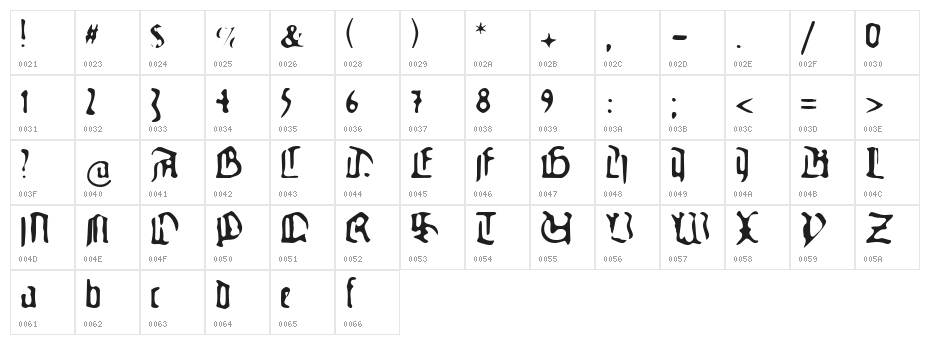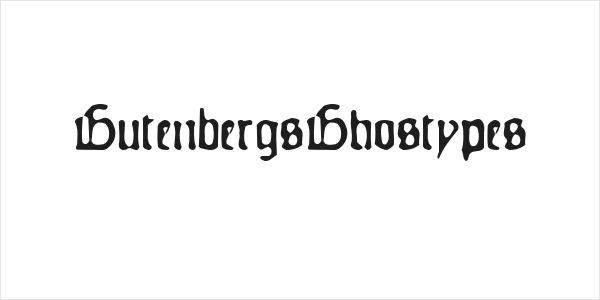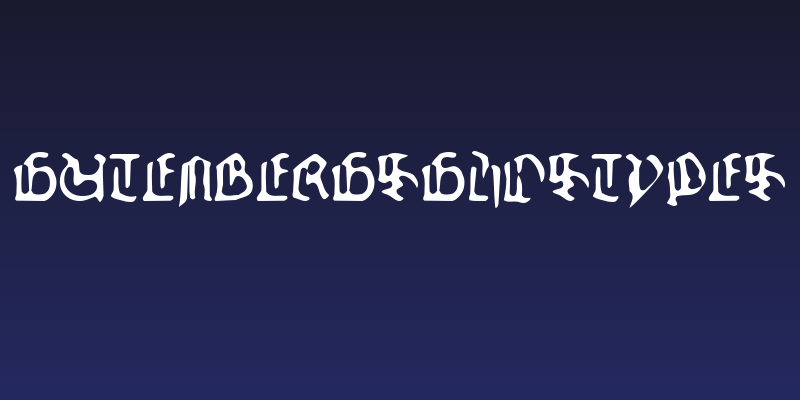
GutenbergsGhostypes Font
GutenbergsGhostypes Description
This font features a distinct blackletter style with a modern twist, characterized by its bold, angular strokes and intricate detailing. The uppercase letters exhibit a strong, authoritative presence with sharp edges and a gothic flair, while the lowercase letters maintain a consistent weight, offering a harmonious balance. The numerals are equally bold, with a unique design that complements the overall aesthetic. Special characters are crafted with the same attention to detail, enhancing the font's versatility. This typeface is perfect for projects that require a dramatic and historical touch, yet it remains legible and impactful.